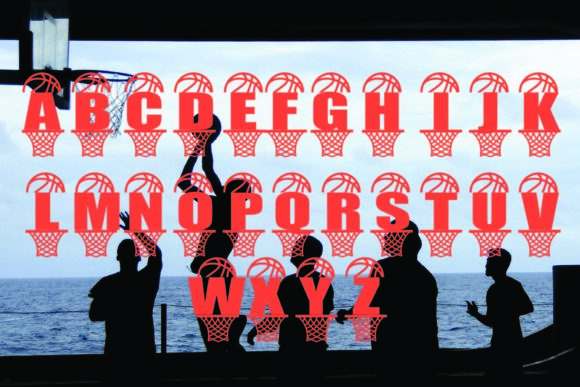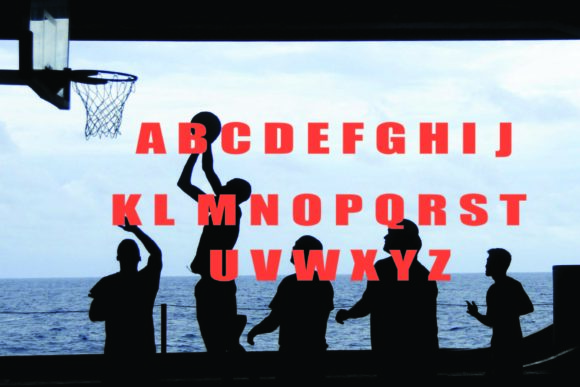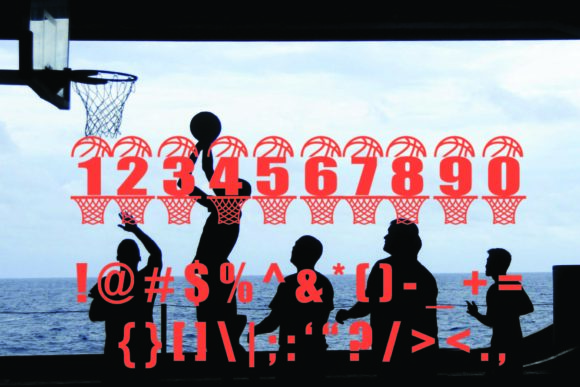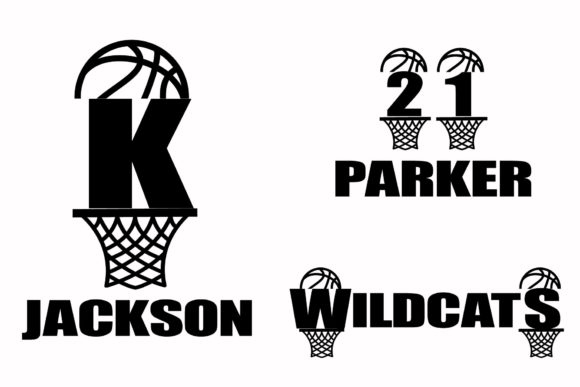
Introduction to Basketball Rim Font
Remember the thrill of sinking a game-winning shot? The rush of adrenaline, the cheers of the crowd, and the sense of accomplishment that comes with it? For basketball enthusiasts, the excitement of the game is not just about the action on the court, but also about the passion and creativity that goes into celebrating it. That’s where the Basketball Rim Font comes in – a stunning display font that’s sure to elevate any design project.
As a valuable resource for designers, the Basketball Rim Font offers a high-quality, transparent background that’s perfect for adding a touch of basketball flair to any creative project. Whether you’re working on a sports-themed design, a logo, or even a simple social media post, this font is sure to make your work stand out. And the best part? It’s available for free download, making it an accessible addition to any design arsenal.
- Designed with a unique, stylized appearance that captures the essence of a basketball rim, making it perfect for sports-themed projects.
Honest Review: Basketball Rim Font
I recently stumbled upon the Basketball Rim Font, and I must say it’s a great addition to my design resources. The font is high quality and comes with a transparent background, making it perfect for my creative project.
- ✨ Unique design that stands out from the crowd
- ✨ Clear and readable even at small sizes
- ⚠️ Limited font styles and variations
- ⚠️ Not ideal for complex typography or large text
In my opinion, the Basketball Rim Font is a great choice for designers looking for a simple and eye-catching font. It’s perfect for logos, icons, and other small design elements. However, if you’re looking for a font with more versatility or depth, you might want to consider other options.
Overall, I’m impressed with the Basketball Rim Font and would recommend it to designers working on a creative project that requires a unique and attention-grabbing font.
To get the most out of the Basketball Rim Font, use it in conjunction with other sporty design elements, such as basketball-themed graphics and colors. You can also experiment with different font sizes, colors, and styles to create a unique look.
The Basketball Rim Font is perfect for sports-themed projects, such as basketball team logos, posters, and flyers. It’s also great for creating a fun and playful atmosphere in design projects, such as event invitations and social media graphics.